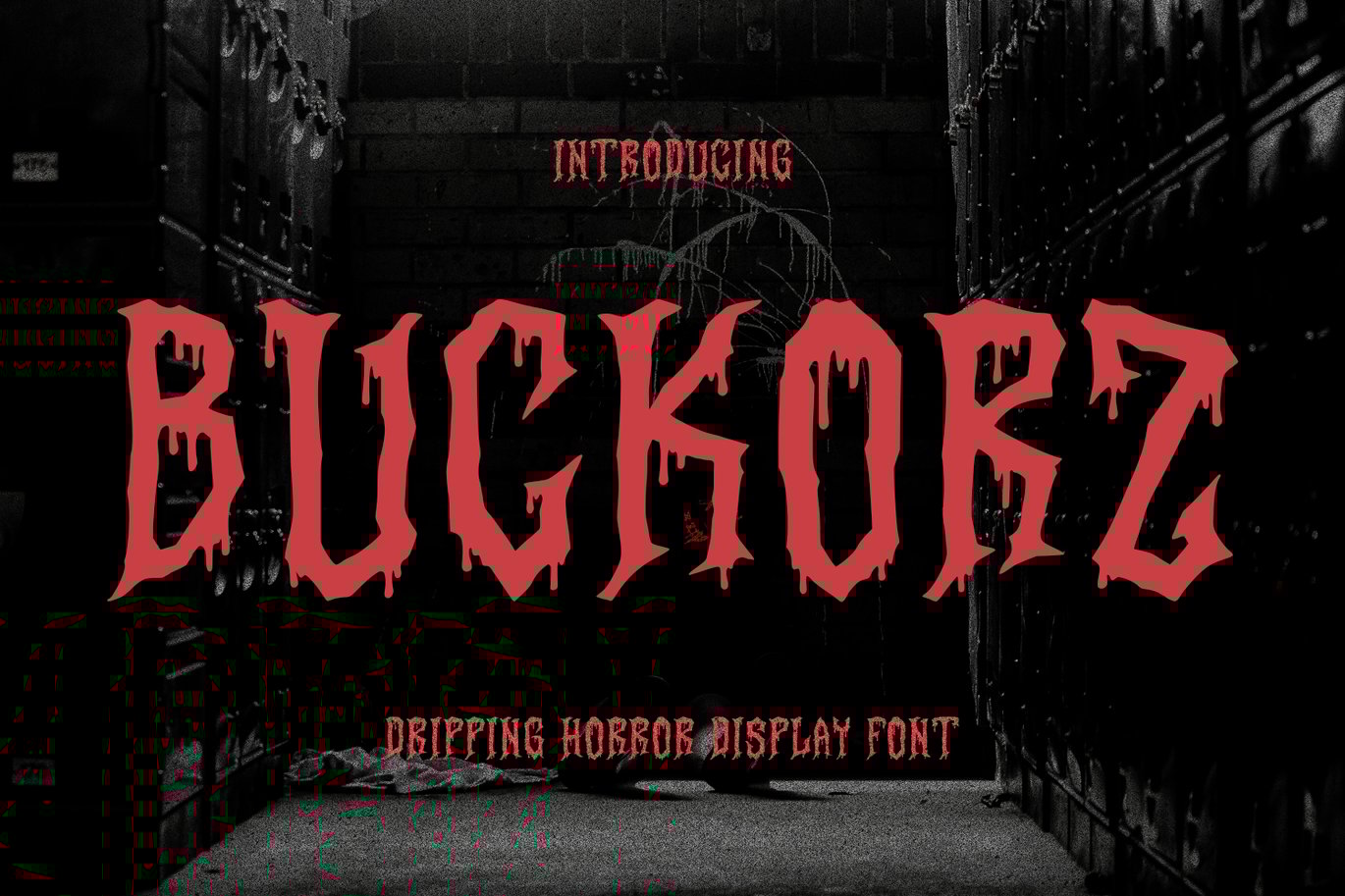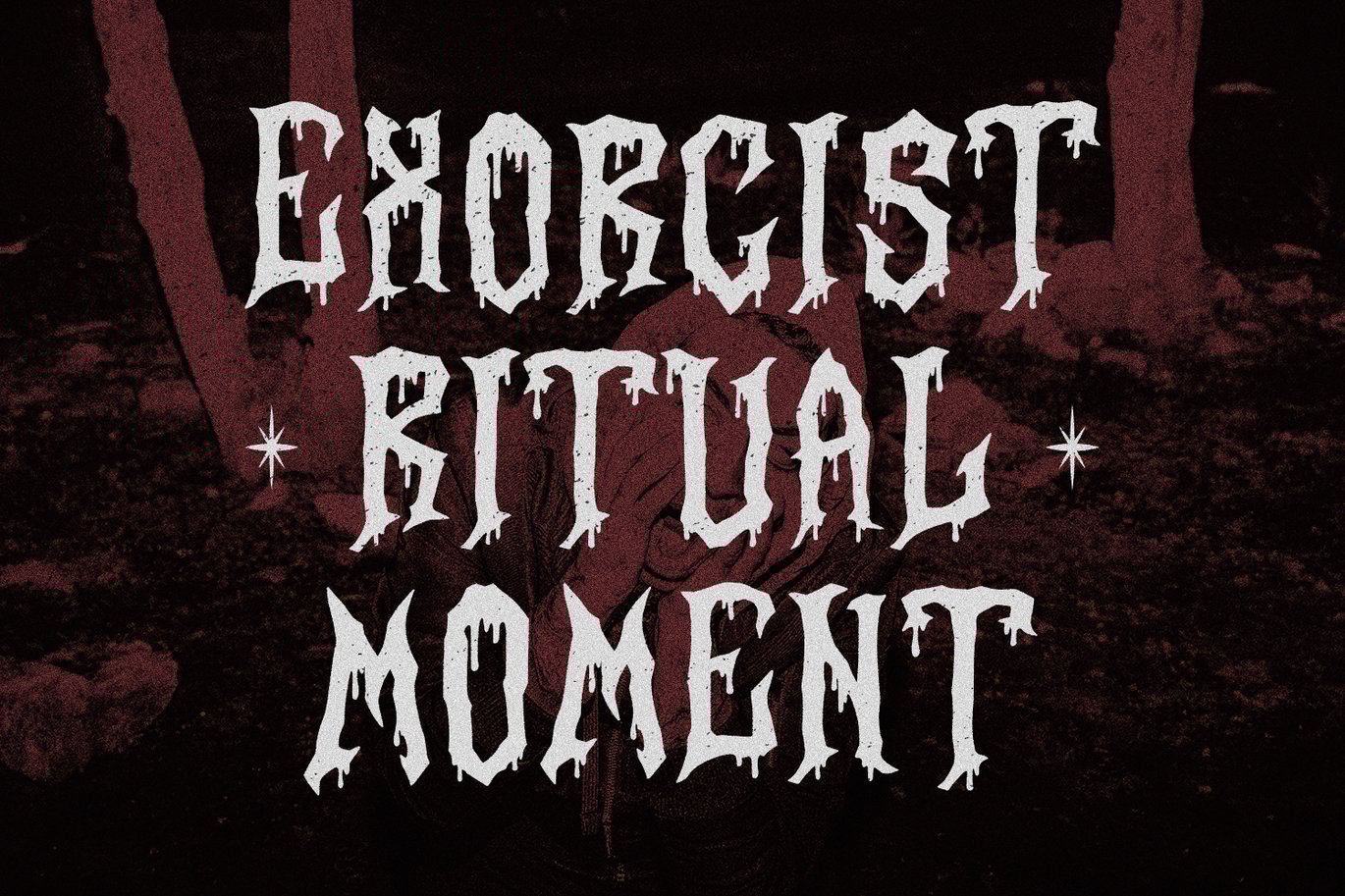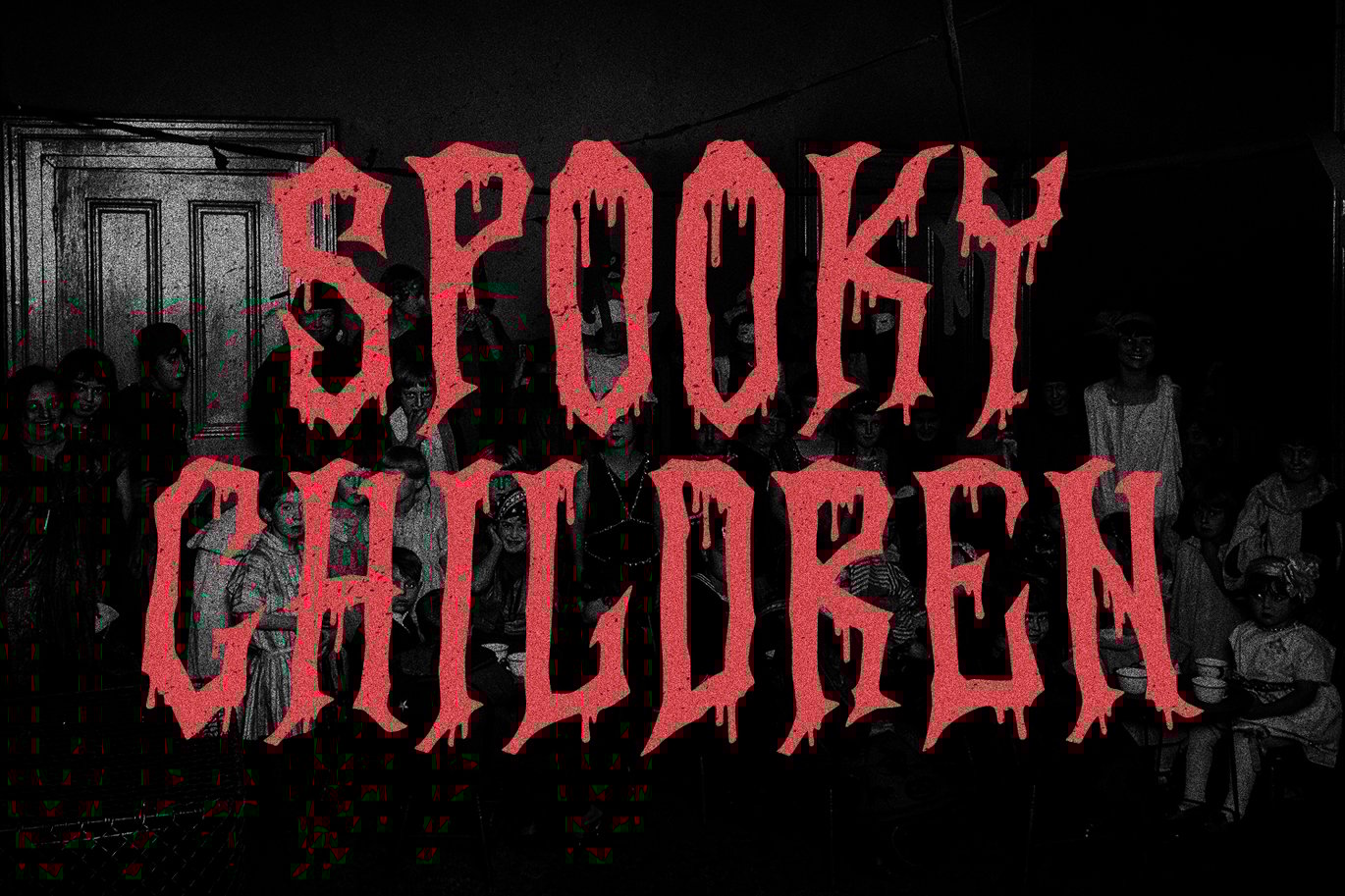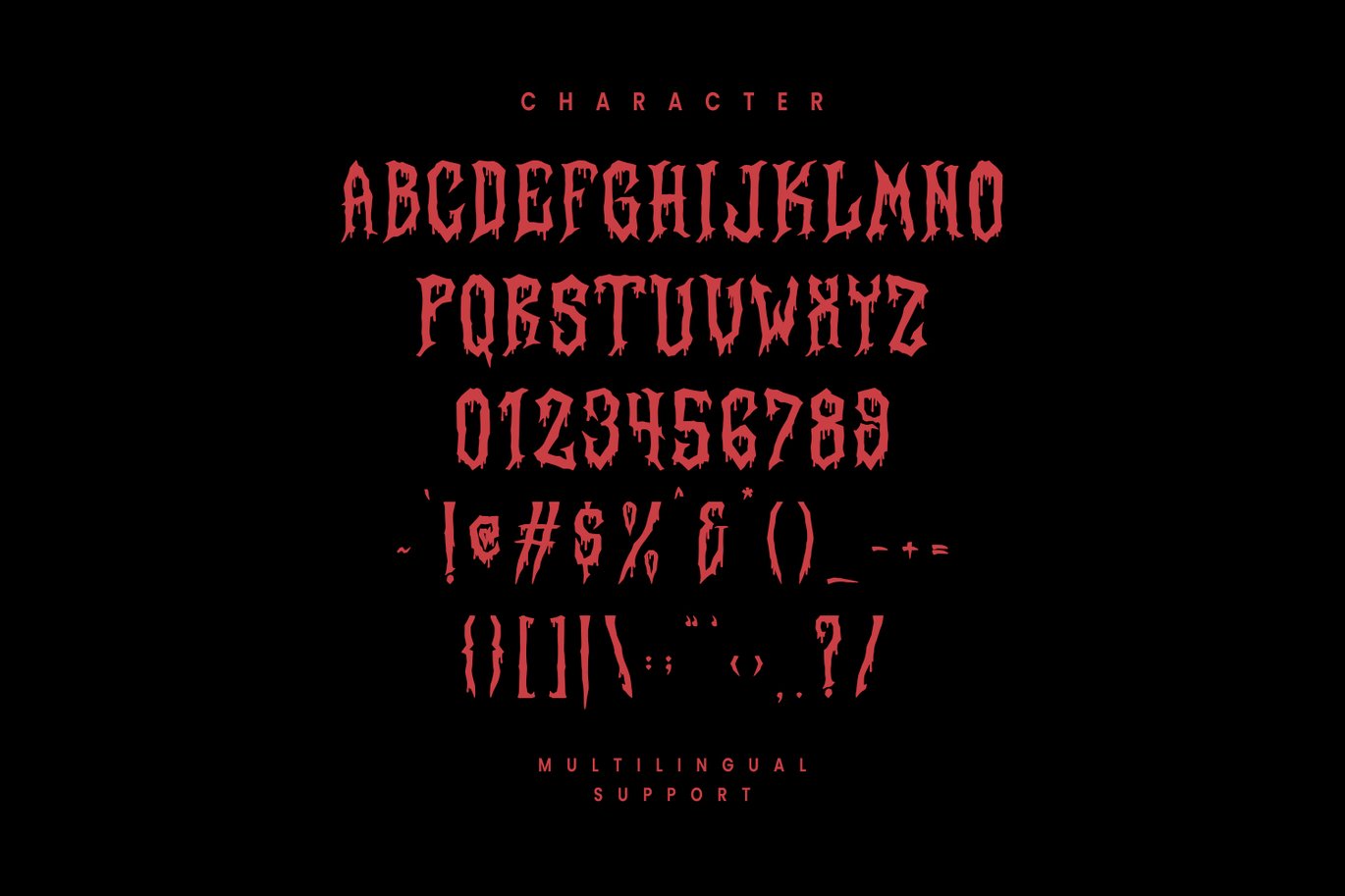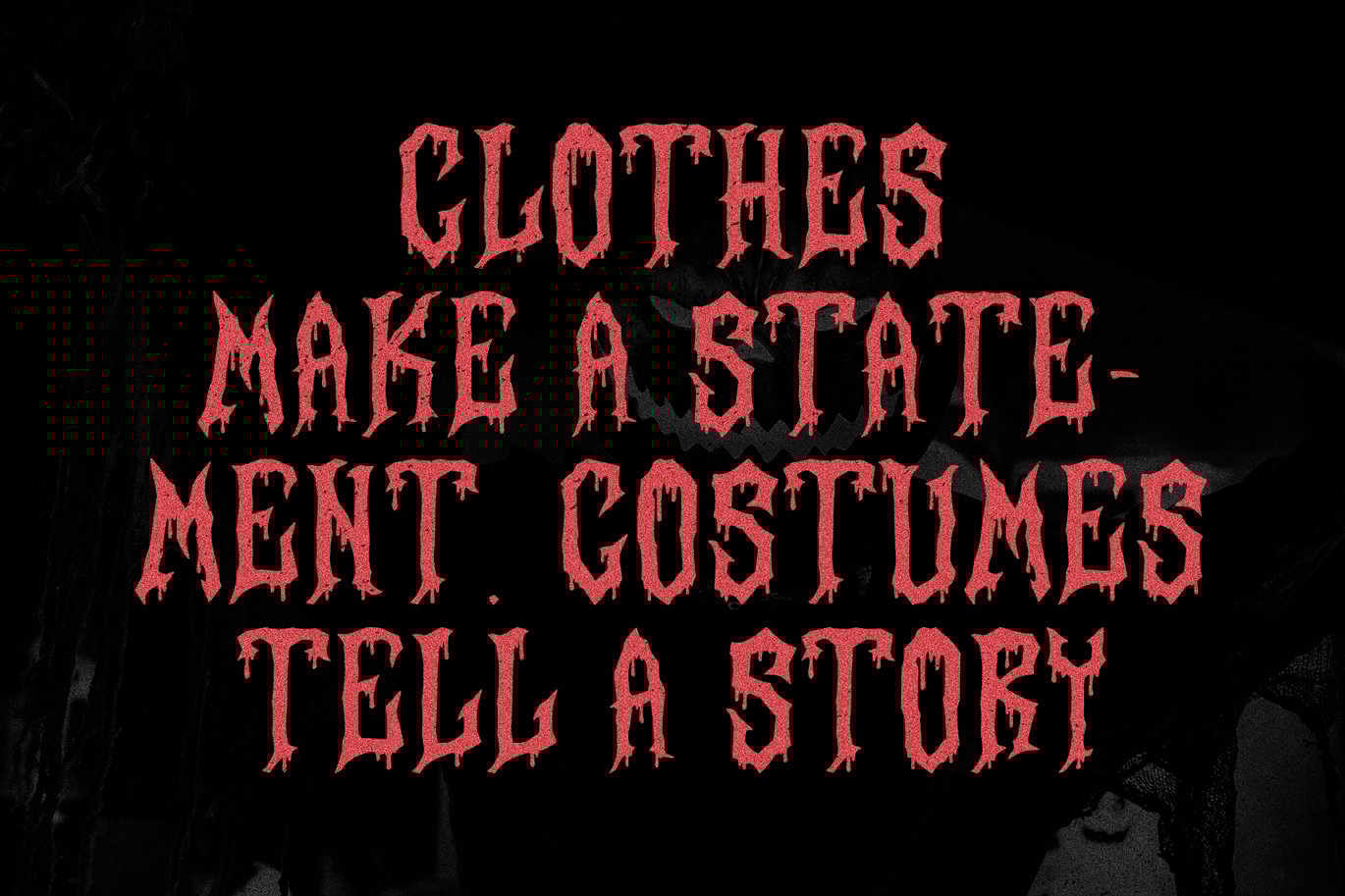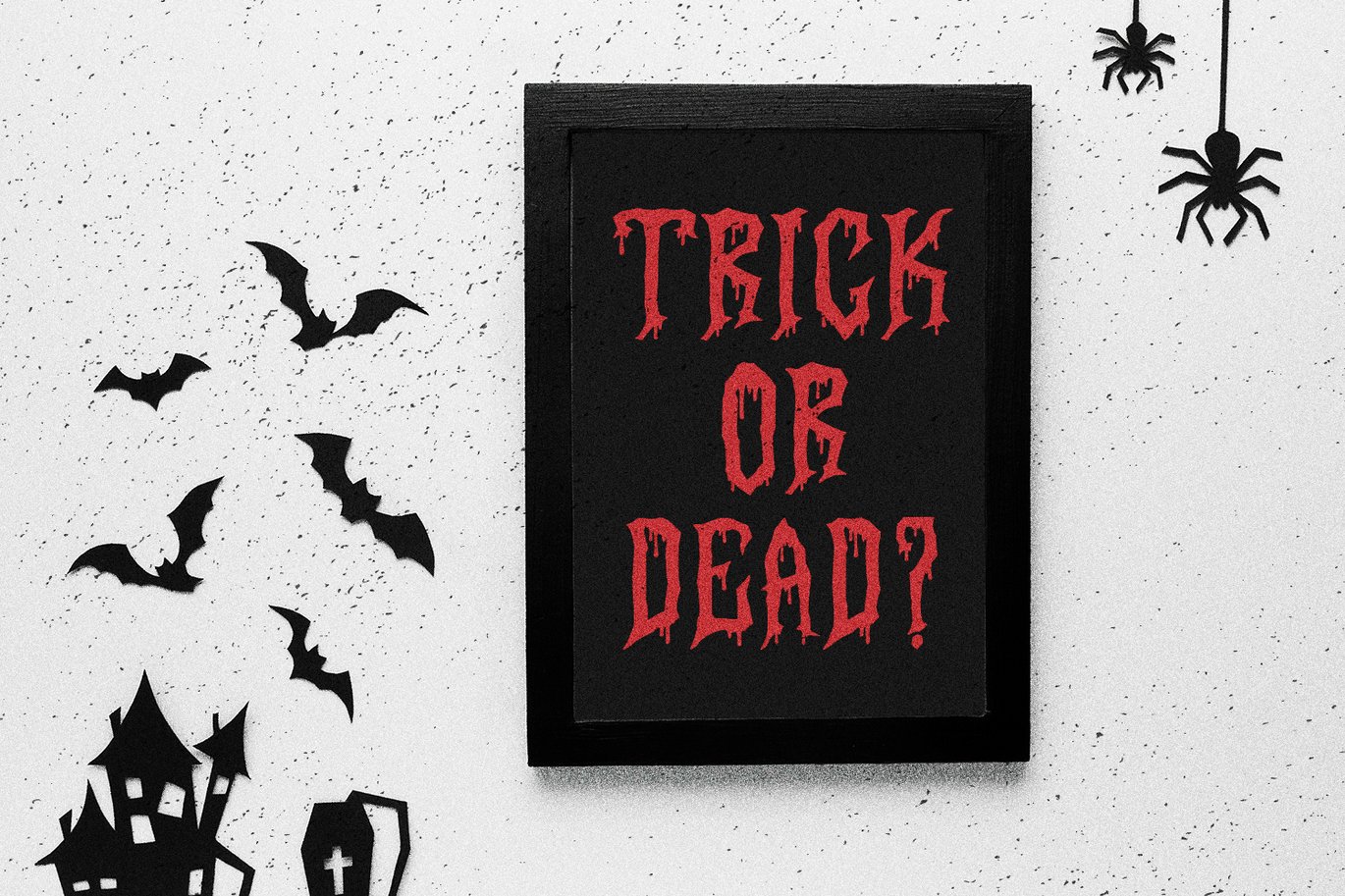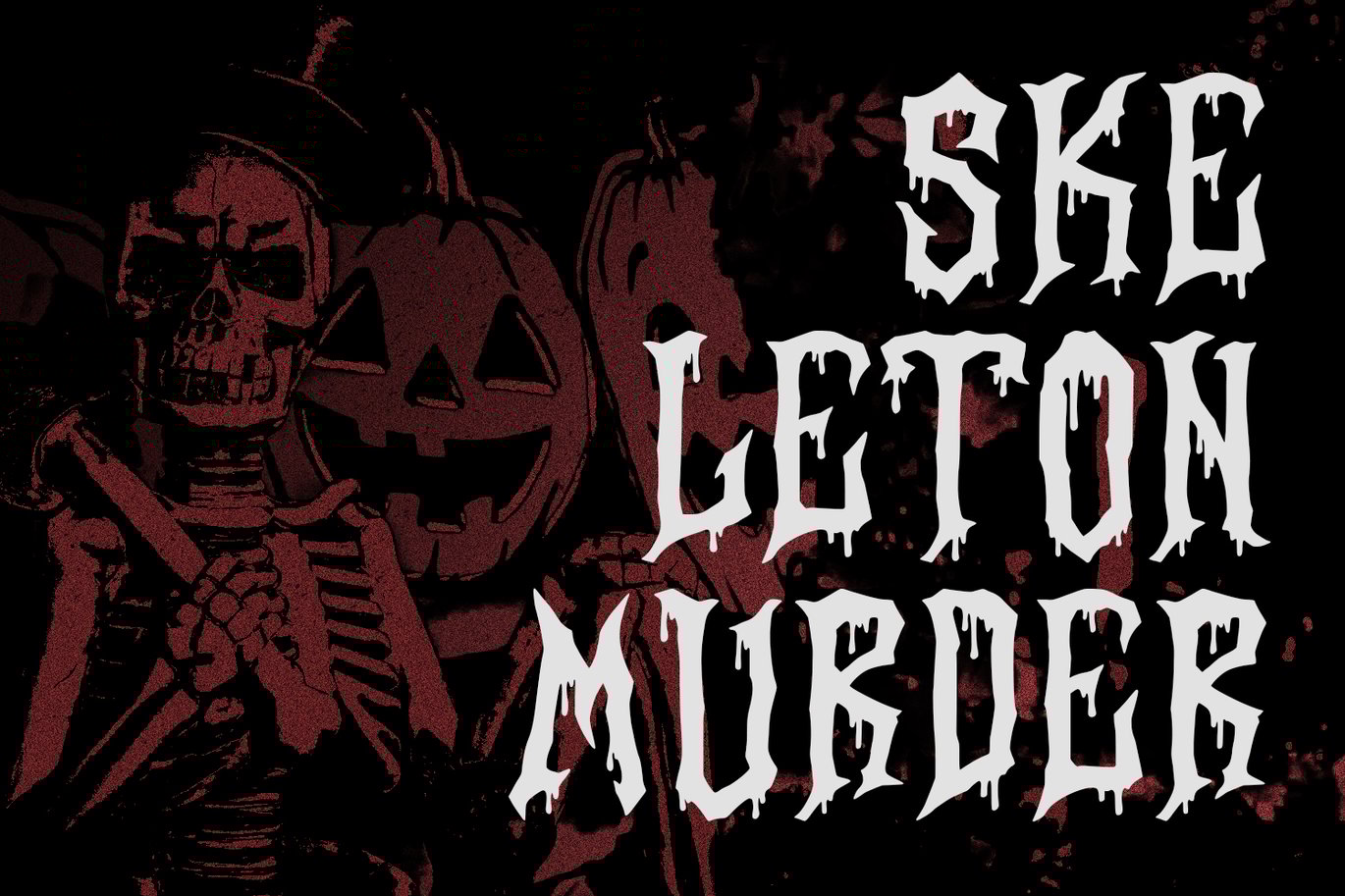
Buckorz Dripping Horror Display Font
Buckorz is a dripping handmade horror display font. With medium low contrast stroke, vintage character. To give you an extra creative work Buckorz font support multilingual language. This font is good for logo design, Social media, Movie Titles, Books Titles, a short text even a long text letter and good for your secondary text font with sans or serif. Make a stunning work with Buckorz is a dripping handmade horror display font.